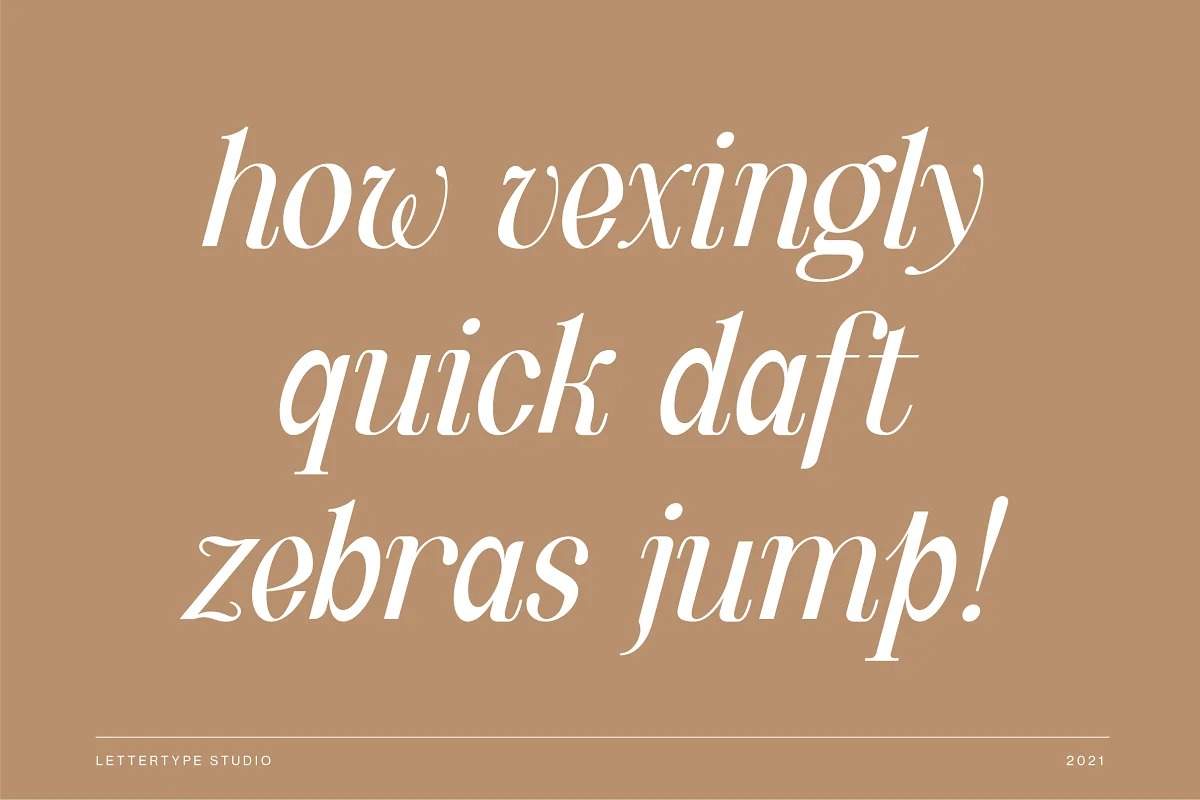
Quinty Serif Font
This is a distinct and elegant serif font created by pradiptacreative with a classic style and comes with 389 glyphs total.
This font will be perfect for your logo design, branding, clothing, signage, posters, wedding invitations, cosmetic or fashion and so much more!
Quinty will help your project or your brand to have a unique vintage and classic look.